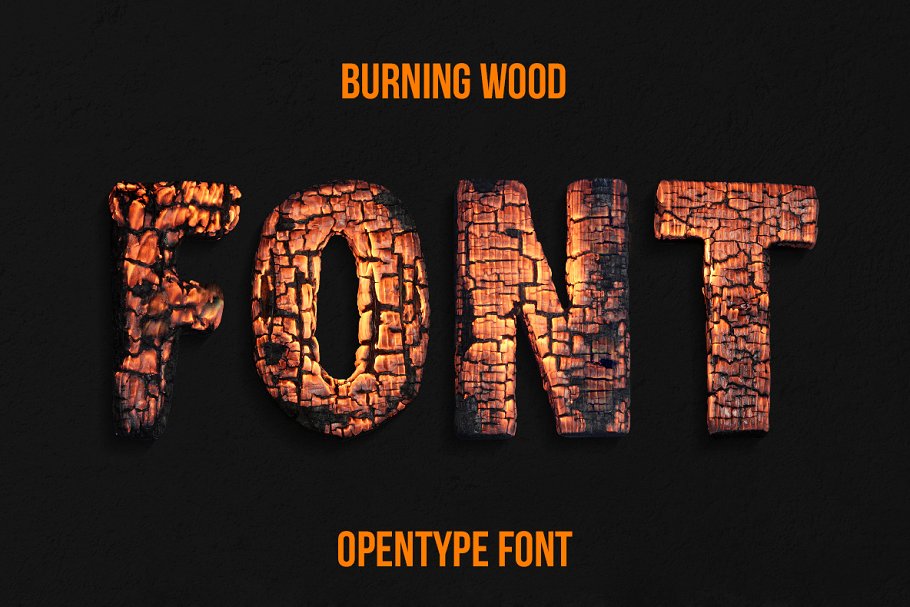
Looking for a stunning and unique font for your menu board? Look no further than Burning Wood Font, created by Vladimir Loginov! This high-definition OpenType-SVG font is perfect for those looking to elevate their designs and make a bold statement.
Featuring uppercase characters, numerals, and basic punctuation, Burning Wood Font is sure to catch the eye of anyone who sees it. And with a draw height of roughly 800 pixels, every letter and glyph is perfectly defined and crisp.